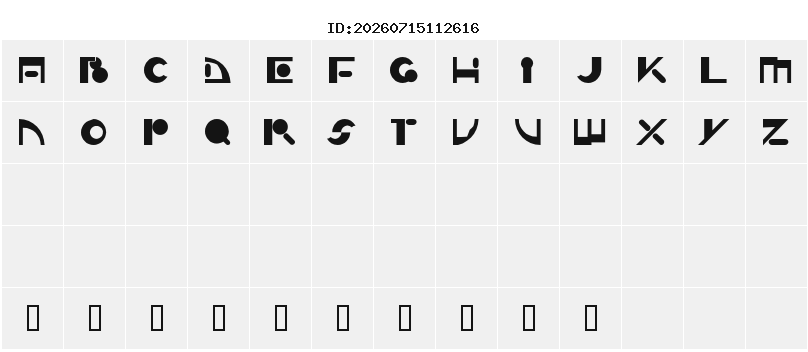
Zippy Preview
• Font Name: Zippy
• Full Font Name: Zippy
About Zippy.ttf
Zippy.ttf is a modern, elegant sans-serif font designed for ultimate readability and visual harmony. Perfect for branding, headlines, web design, and print materials.